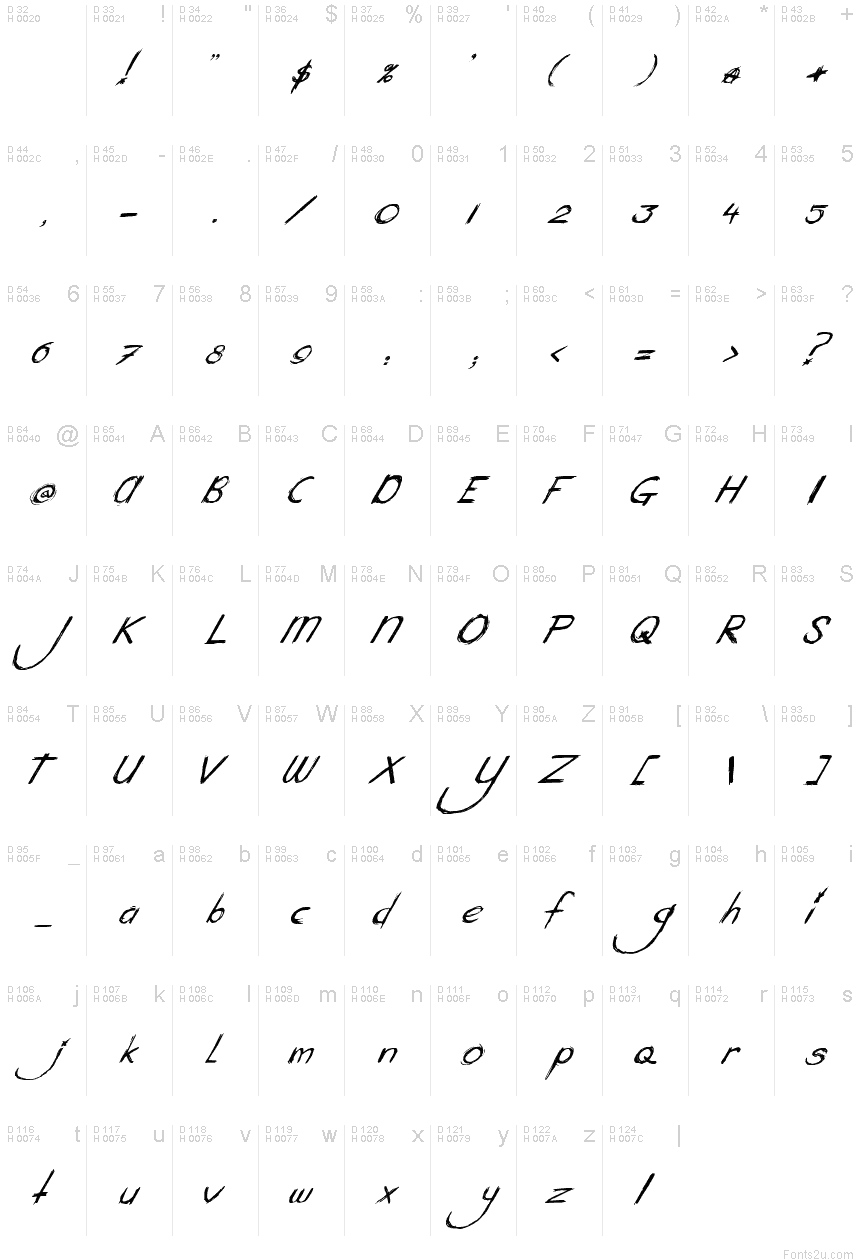
Mary Ate a Little Lamb Italic by David Kerkhoff is a free brush script with sweeping angled strokes and a handwritten slant. Its changing stroke widths resemble quick work with an ink-loaded brush. Rough edges and flicked ends keep the letters visibly handmade.
The brushwork connects directly with loose ink illustration, making the font apt for children's book covers and storybook artwork. It also suits bakery packaging and playful invitations. Beside sketchy animals or watercolor scenes, the lettering can become part of the drawn image rather than a separate caption.